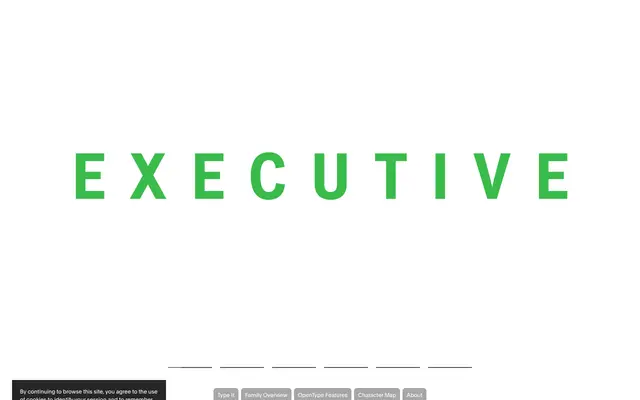
Executive
Optimo · Gavillet & Rust
Gavillet & Rust's typewriter-flavoured sans, drawn from a Hammond typewriter shuttle with narrow proportions and generous spacing.
A classic sans-serif by Gavillet & Rust drawn from a Hammond typewriter shuttle. The family keeps the source's narrow proportions, with W and M sitting compact, and the generous letterspacing reads clear and sharp at text sizes. Five weights from Thin to Bold with matching italics make it a workable text and identity sans with quiet typewriter character.
Optimo describes Executive as a classic sans-serif typeface that retains the raw DNA of typewriter type, drawn from a Hammond typewriter shuttle with narrow proportions and generous letterspacing.